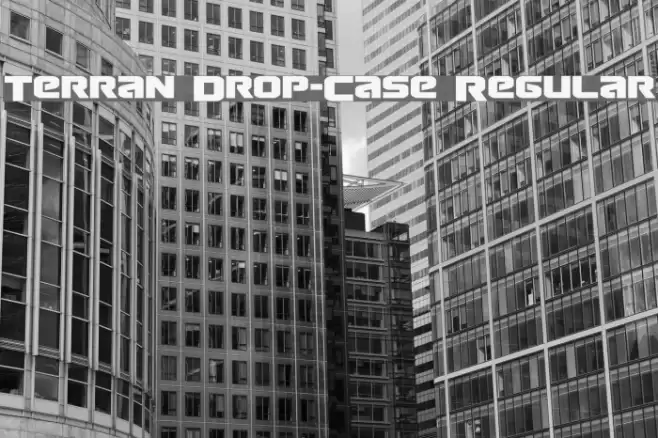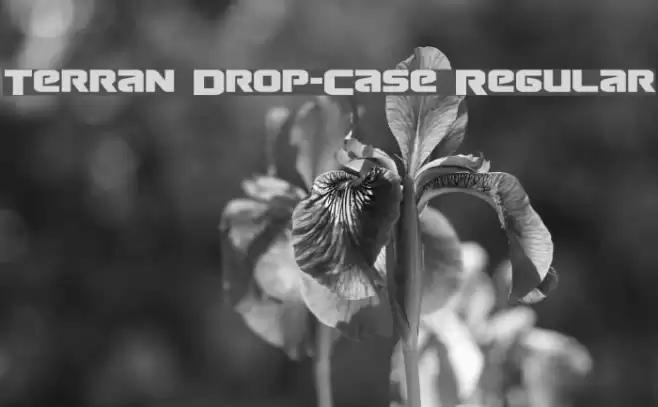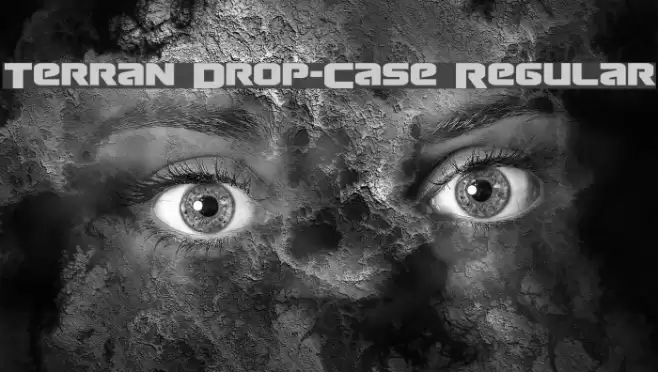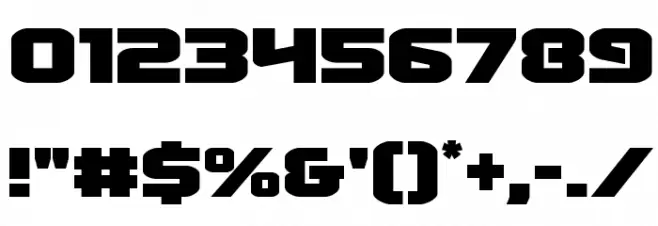
Terran Drop-Case Regular Font
Terran Drop-Case Regular Description
This font features a bold, geometric design with strong, angular lines and a futuristic aesthetic. The characters are uniformly wide, giving a sense of stability and strength. The uppercase letters are particularly striking, with a blocky appearance that commands attention. The lowercase letters maintain the same boldness, ensuring consistency throughout. Numbers and special characters are designed to match the bold, angular style, making them easily readable and visually cohesive. This font is ideal for projects that require a modern, impactful look.
A bold, geometric font with a futuristic and angular design from Sci-fi fonts.
- Proposed Projects: Ideal for sci-fi themed designs, video game titles, technology branding, and modern posters.